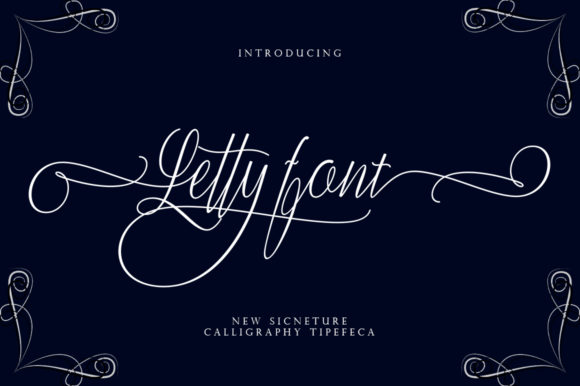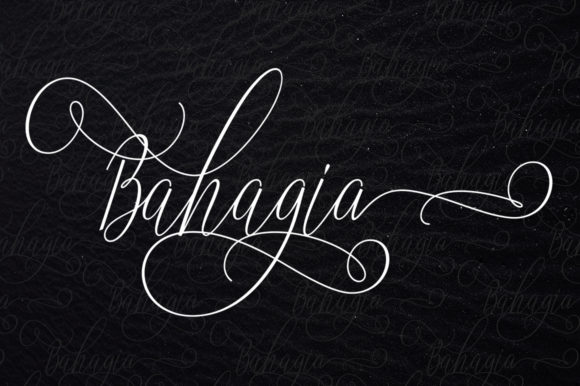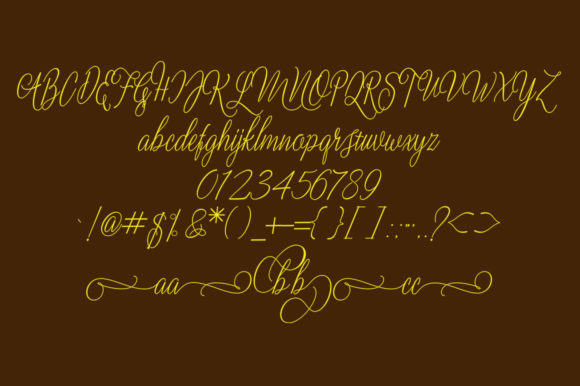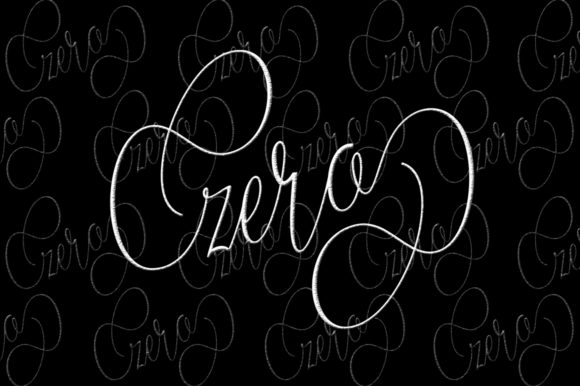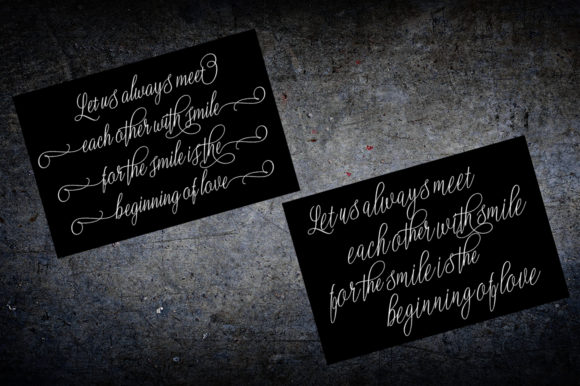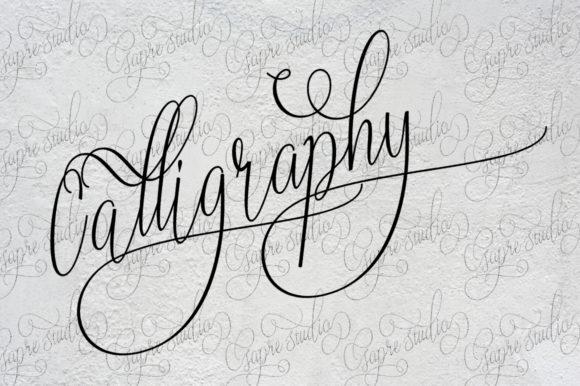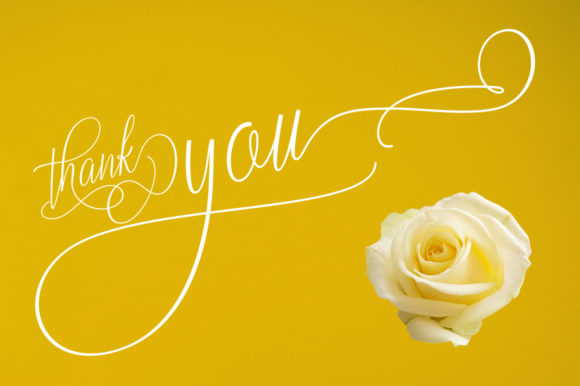
Letty Font
About Letty Font
Letty Font is a beautiful and stunning handwritten font with an incredible charm. Fall in love with its authentic swashes.